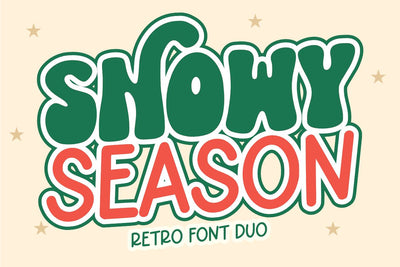
Snowy Season - Retro Duo Font
Snowy Season is a duo display font that combines playful and retro groovy. a font inspired by retro typography. This font is very suitable for Christmas celebrations with a fun retro style. Apart from that, this font is also perfect for various design ideas such as t-shirts, mugs, apparel, book covers, cards, wall art, pillows, keychains, sweaters, hoodies, totebags, Cricut, cherry blossom cup wrap, laser, SVG and other creative ideas. even suitable for various themes such as Christmas, Halloween, fall, autumn, thanksgiving, kids, Easter, spring, and others.